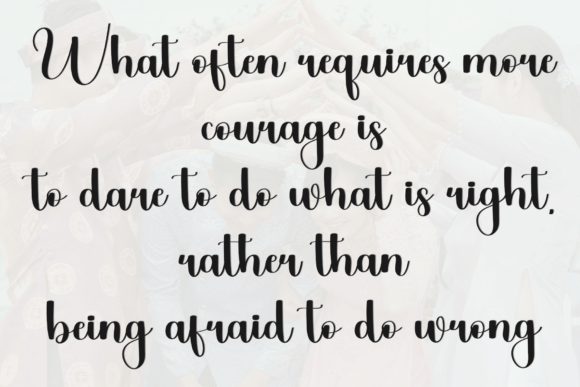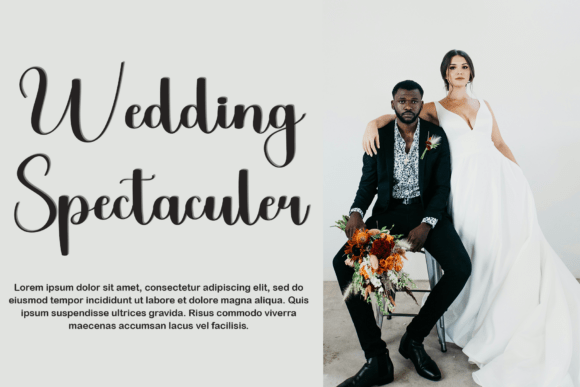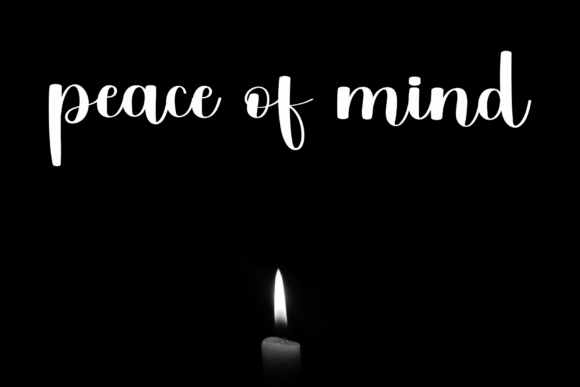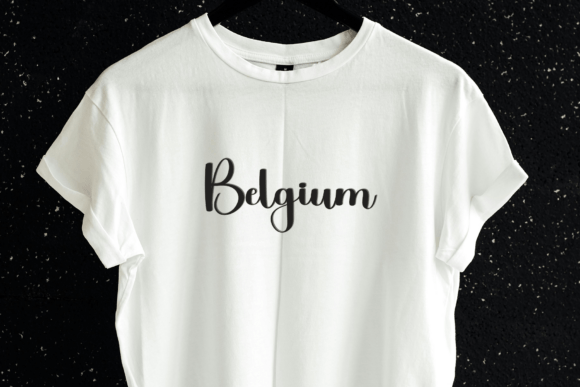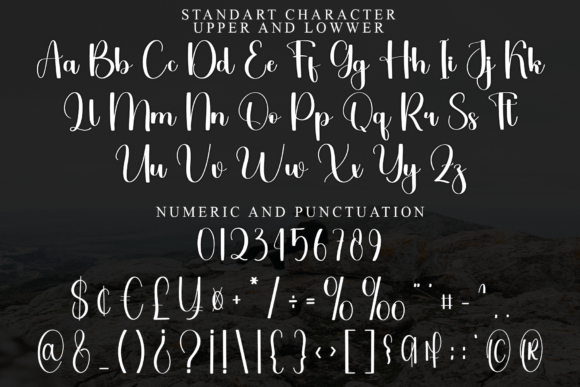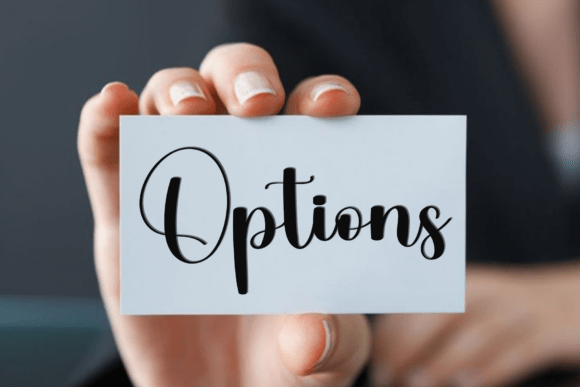
The Designer’s Delight: Getting to Know Fadetta Font
I still remember the frustration of working on a design project, hours spent searching for the perfect font, only to end up with something that just didn’t quite fit. My client wanted something unique, something that would make their brand stand out, but I was stuck in a sea of similar sans-serifs and classics. That’s when I stumbled upon Fadetta Font, and it was love at first sight! ✨
An Honest Review of Fadetta Font
- ✅ Unique and Eye-Catching Design: Fadetta’s soft, distinctive strokes give it a special character that makes it perfect for a wide range of design projects.
- ✅ Versatility: With various characters, Fadetta is suitable for crafts, creative works, and design projects across different artistic fields.
- ✅ Natural and Appealing: This font style enhances designs, making them appealing to many audiences.
While Fadetta is an amazing font, there are a few things to keep in mind: 🤔
- ⚠️ Glyphs and OpenType Features: Some users might find that navigating the glyphs and OpenType features takes a bit of getting used to, especially for beginners.
- ⚠️ Legibility at Small Sizes: As with many decorative fonts, Fadetta might lose some legibility when used at very small sizes.
The Story Behind Fadetta: A Glimpse into Its Design
Fadetta was designed with the intention of creating a font that was both unique and versatile. Its creator aimed to craft a font that would stand out in digital and print media, with a soft yet distinctive touch. The result is a font that feels both modern and approachable.
Q: What makes Fadetta unique?
A: Fadetta’s unique, soft strokes and versatile design make it stand out from more traditional fonts.
Q: Is Fadetta suitable for body text?
A: While Fadetta is eye-catching, it’s best used for headings and titles. For body text, a more straightforward font might be more readable.
Q: Does Fadetta support OpenType features?
A: Yes, Fadetta supports OpenType features, allowing for a range of stylistic alternates and glyphs to enhance your designs.